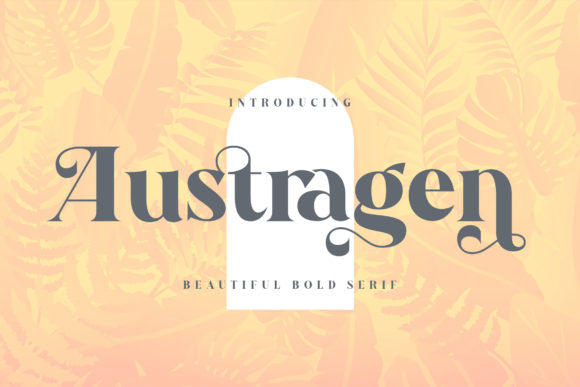
**Introducing Austragen: The Font That Embodies Style and Sophistication**
Unleash the power of typography with Austragen, a captivating serif font that exudes fashion and class. Crafted by the masterminds at almarkhatype, this font is an exquisite blend of traditional elegance and modern flair, making it the perfect choice for those seeking to make a statement.
**A Fashionista's Dream**
Austragen's elegant curves and sharp serifs evoke the glamour and sophistication of the fashion world. Each letter dances across the page, creating a visual symphony that commands attention and leaves a lasting impression. Whether you're designing logos, branding, or social media posts, Austragen will elevate your creations to the realm of high fashion.
**The Epitome of Versatility**
Austragen's versatility extends far beyond the world of fashion. Its timeless beauty lends itself seamlessly to a myriad of applications. From invitations and stationery to wedding designs and corporate branding, Austragen transforms ordinary text into captivating masterpieces.
**Effortless Charm for All Occasions**
With Austragen, the possibilities are endless. Its chic appearance adds a touch of refinement to any project, making it the perfect choice for businesses, designers, and individuals alike. Whether you're creating a stunning logo, designing a memorable invitation, or crafting an eye-catching social media post, Austragen will effortlessly elevate your work to new heights.
**A Font That Inspires**
Austragen is more than just a collection of letters; it's a source of inspiration. Its elegant lines and graceful curves will ignite your creativity, empowering you to express yourself with style and panache. Every project you create with Austragen becomes a reflection of your discerning taste and love for the finer things in life.
**Unleash the Power of Typography**
Don't settle for ordinary fonts that blend into the background. Choose Austragen, the font that commands attention and sparks conversation. Its beauty and versatility will transform your designs into works of art, leaving a lasting impression on everyone who encounters them.
**Embrace the Austragen Experience**